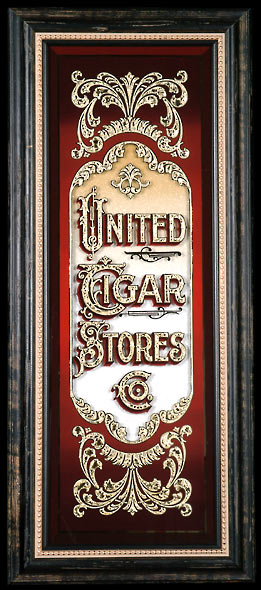
Can you all tell me how, or point me in a direction, where I can learn the techniques used in painting or in particular, shading with reverse glass. Here's a panel, I think it's Larry Whites. Thanks
Indeed it is...
Sometimes it's hard to know exactly what you're looking at in a photo.
The white background is actually a white glass smalt product called
"Diamond Dust", that I got over at Michael's Craft Store. It's adhered
to the face of a masonite panel stood off of the glass by about 3/8's of
an inch. The amber fade is varnish that has been tinted with Asphaltum
and airbrushed on the backside of the glass.
The deep red outer background is 3 shades of Japan color paint, brush
blended on the back of the glass.
One of the best ways to learn these techniques would be to take one
of Noel Weber & John Studden's gilding workshops. They seem to do
them regularly. Let 'em know you're interested in the next one.
Now ya know....
Sometimes it's hard to know exactly what you're looking at in a photo.
""Diamond Dust", that I got over at Michael's Craft Store. It's adhered
to the face of a masonite panel stood off of the glass by about 3/8's of
an inch. The amber fade is varnish that has been tinted with Asphaltum
and airbrushed on the backside of the glass."
Thanks again Larry. Talk about Smoke and mirror's! Now, when you say Masonite, I'm thinking of that 1/8, hard as nails type of masonite. Is that right? As I was surfing the net on this subject, I came across some of other panels of yours. In it you were talking about fabrics to use behind the glass and printed photo's and the like. This makes me very happy, cuz I have no talent to speak of. If I have to rely on technology for help in my creations, then so be it. Is the varnished part of the panel shaded or is it just the angle that it was photographed?
The amber color is airbrush faded about 5" down in the top section
of the clear center panel, the rest of the panel is left clear glass,
with the smalt panel is behind it.
Yes, the smalt is adhered to a masonite hardboard panel.
Some more information can be found here:
Blended Letter Shades
Blended Backgrounds
Smith's Cream
This one has a fabric background...
This one employed an old piece of plywood as the background....
By now you probably figured out you can put an almost unlimited variety of flat surfaces behind a piece of glass if you leave some of it clear. I think Larry mentioned spacing his glass off the back surface by about 1/4". That's a variable you can control or adjust based on the size of the spacers. This will cast a natural shadow onto the background. It might be possible to place the background right up against the glass, but you lose the shadow. If the paint on the back side of the glass is still soft, it might also squish into the background and eventually damage the paint you see from the front.